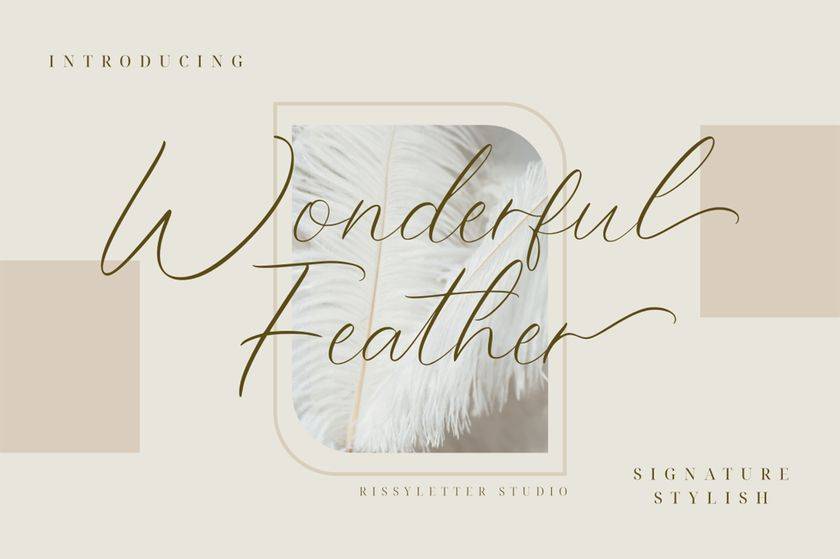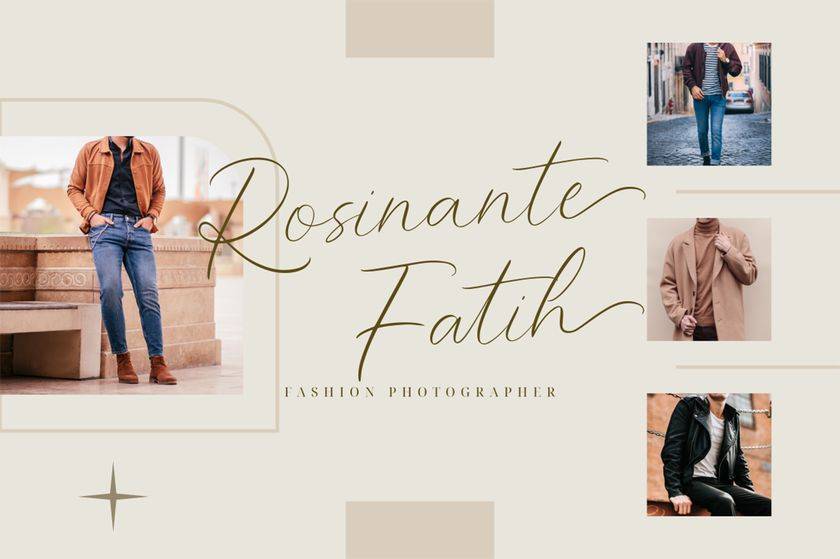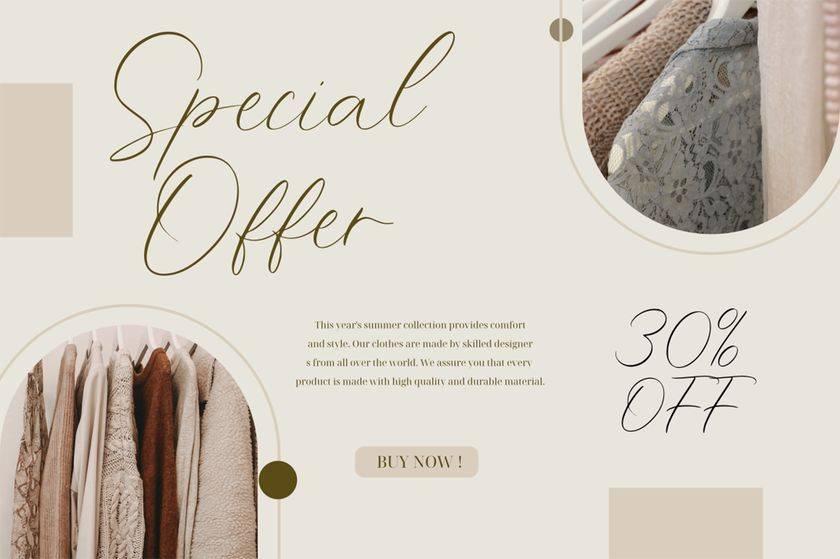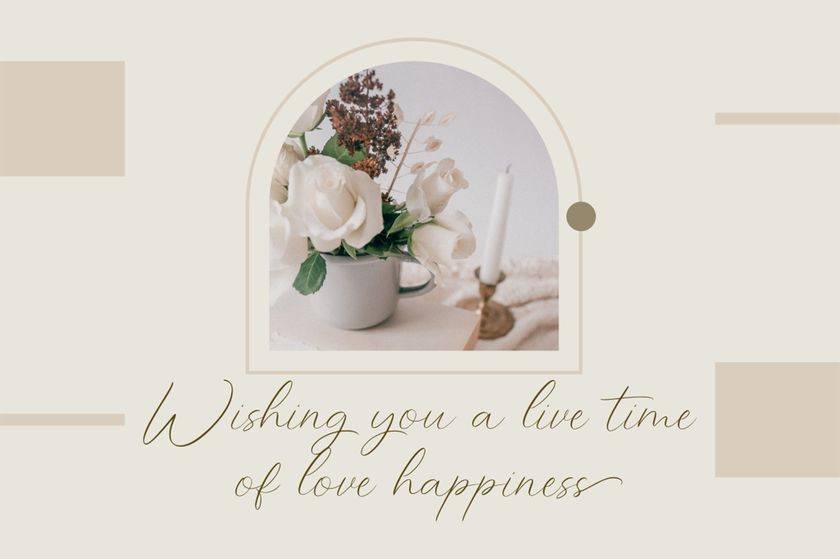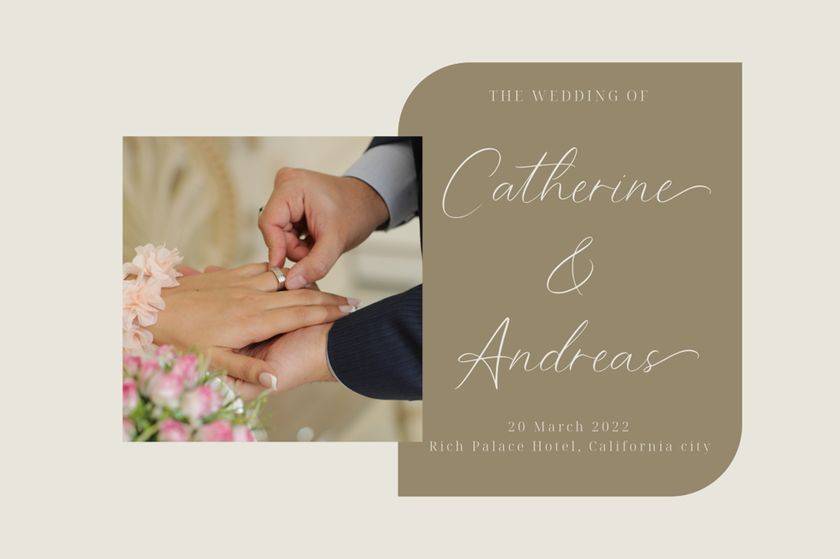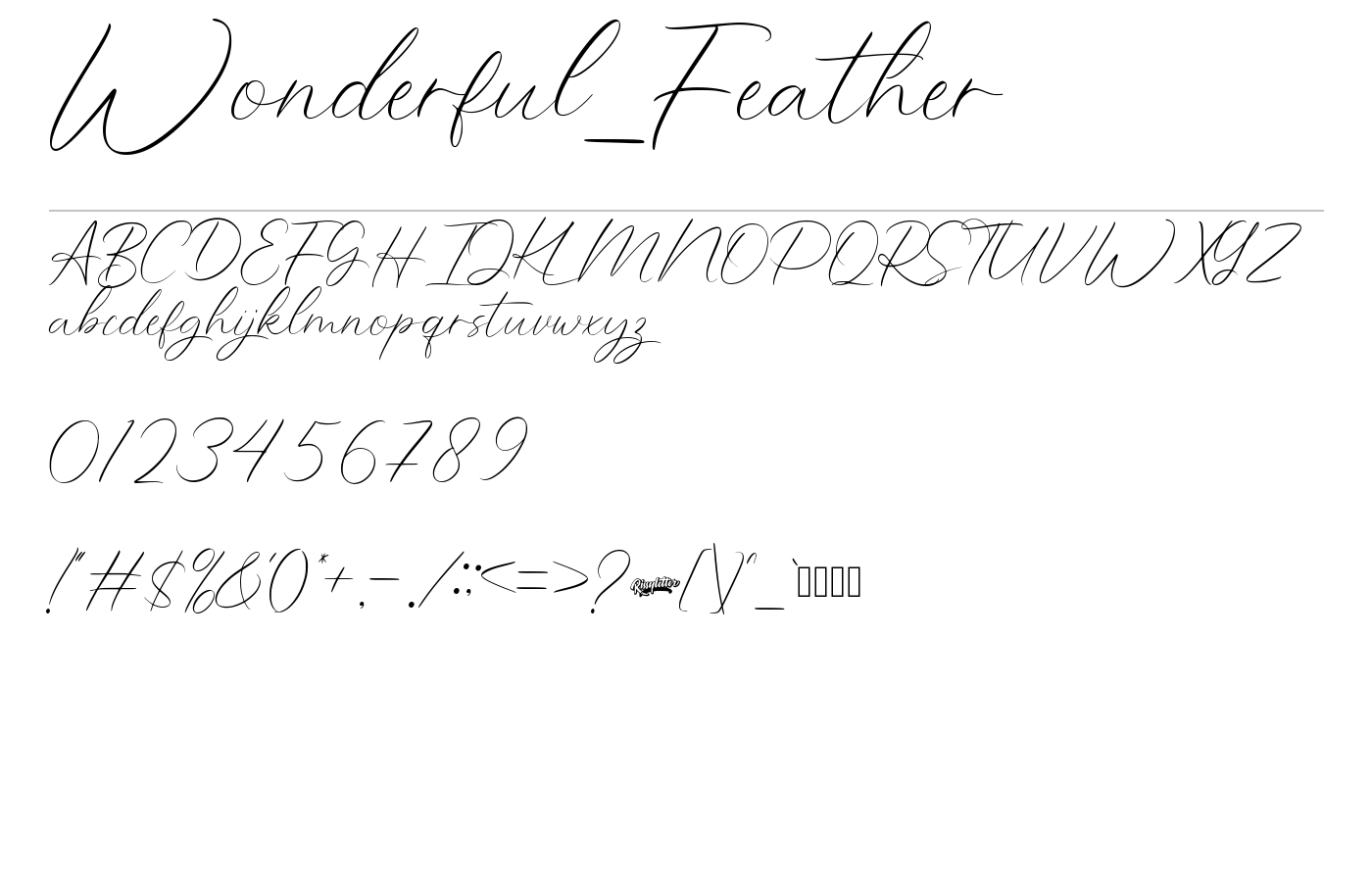
Wonderful Feather is a delicate script font characterized by its thin, flowing strokes and elegant, handwritten style. It features tall, graceful letterforms with a light weight and smooth, airy spacing, making it perfect for sophisticated branding, wedding invitations, or any design seeking a refined, personal touch. Its subtle flourish and gentle curves convey a sense of luxury and femininity while maintaining readability and charm.
Wonderful Feather Font
About Wonderful Feather Font